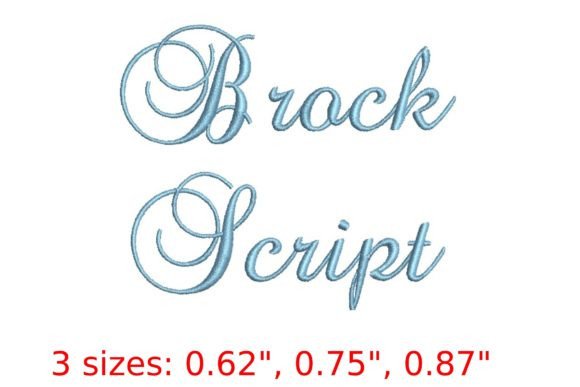
Discover the Elegance of Brock Script Font in Embroidery Design
The world of embroidery is constantly evolving, with new fonts and design elements emerging to meet the diverse needs of creators. Among these, the Brock Script Font stands out for its timeless appeal and versatility. Whether you're a professional designer, a hobbyist, or someone looking to elevate your craft, this font offers a unique blend of sophistication and adaptability. Its intricate strokes and flowing lines make it ideal for a wide range of applications, from formal invitations to personalized monograms.
What Makes Brock Script Font Unique?
Brock Script Font is more than just an aesthetic choice—it's a statement. The font features elegant, cursive-style characters that exude refinement and grace. Each letter is carefully crafted to maintain consistency while allowing for subtle variations that add character and charm. This attention to detail ensures that every design using Brock Script Font feels intentional and polished.
One of the standout qualities of Brock Script Font is its ability to adapt to different sizes and formats without losing its visual appeal. This makes it suitable for both small-scale projects and large-format designs. The font also includes a comprehensive set of letters and punctuation, ensuring that you have all the tools needed to create complete and meaningful messages.
Applications of Brock Script Font in Embroidery
The versatility of Brock Script Font extends across various embroidery applications. Here are some common use cases where this font shines:
- Formal Invitations: For weddings, galas, or special events, Brock Script Font adds an air of elegance and formality to your invitations. Its flowing script complements the sophistication of such occasions.
- Monograms and Personalized Text: Whether it's a name, a signature, or a custom message, Brock Script Font allows you to create beautifully detailed monograms that stand out.
- Decorative Embellishments: Use this font to add intricate details to clothing, accessories, or home decor items. Its ornate style can transform simple designs into eye-catching pieces.
- Brand Identity: Businesses and designers can incorporate Brock Script Font into logos, branding materials, and promotional items to convey a sense of luxury and exclusivity.
- Artistic Projects: Artists and creators often use this font to add a personal touch to their work, whether it's through embroidered art pieces or custom textiles.
Each of these applications demonstrates how Brock Script Font can be tailored to suit different purposes while maintaining its core aesthetic. Its adaptability makes it a valuable asset for anyone involved in embroidery design.
Technical Considerations for Using Brock Script Font
Choosing the Right Size and Format
Selecting the appropriate size and format for your Brock Script Font design is crucial for achieving the desired outcome. Larger sizes will require more stitches and may take longer to embroider, while smaller sizes offer greater detail but may be more challenging to work with.
For beginners, starting with a medium-sized design is often the best approach. This allows for easier handling and a better understanding of how the font behaves under different conditions. As skill and experience grow, experimenting with varying sizes and formats can lead to more creative and refined results.
Why Choose Brock Script Font Over Other Options?
While there are many fonts available for embroidery, Brock Script Font distinguishes itself through its unique combination of beauty, functionality, and adaptability. Unlike some other script fonts that may appear overly decorative or difficult to read, Brock Script Font maintains readability while still offering a luxurious feel.
By understanding the font's strengths, considering its technical requirements, and exploring its diverse applications, you can unlock its full potential. With careful planning and execution, Brock Script Font can become a staple in your embroidery toolkit, helping you create beautiful, meaningful, and lasting designs.